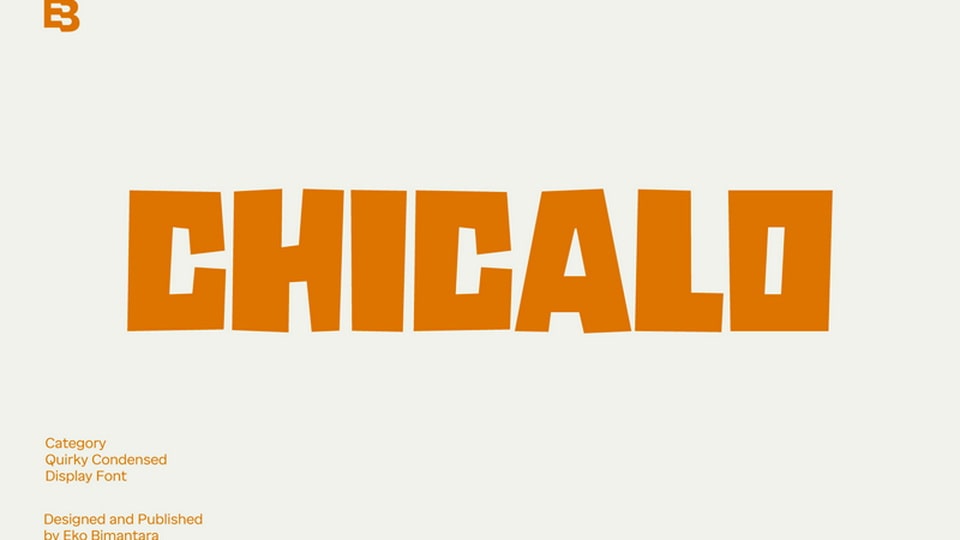
Download Chicalo font, a quirky and condensed display typeface with a bold, blocky personality. Its playful, irregular letterforms create a fun and dynamic rhythm, making it perfect for eye-catching designs.